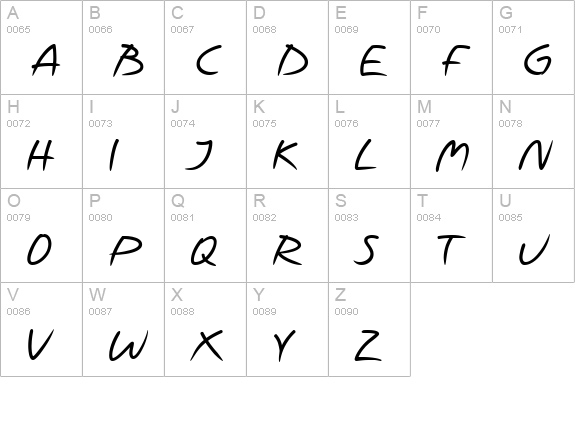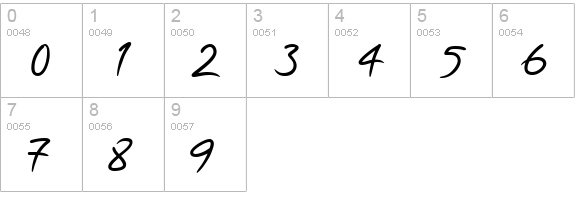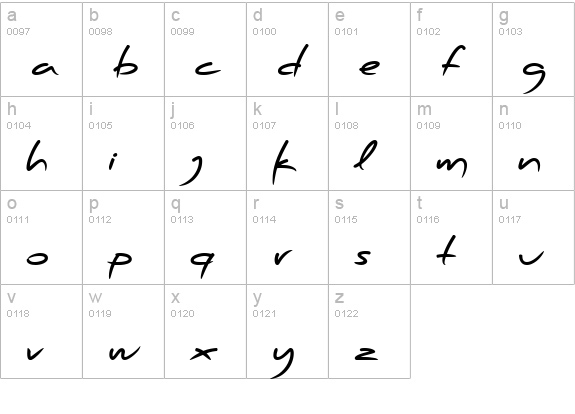
PFScandalPro-Bold Font Details
PFScandalPro-Bold is a strong, high-contrast variant in the PFScandalPro typeface family \xE2\x80\x94 well suited to headlines, attention-grabbing titles, and strong calls-to-action.
The PFScandalPro-Bold font is a bold and eye-catching typeface that exudes confidence and sophistication. Its strong and commanding presence makes it perfect for headlines, titles, and branding materials. With its sleek and modern design, PFScandalPro-Bold is sure to make a statement in any project. The best part is that PFScandalPro-Bold is available for free download at FontsMarket.com. This means you can easily access this stylish font without any cost, making it a valuable addition to your font library. Don't miss out on the opportunity to enhance your designs with the impactful PFScandalPro-Bold font today!